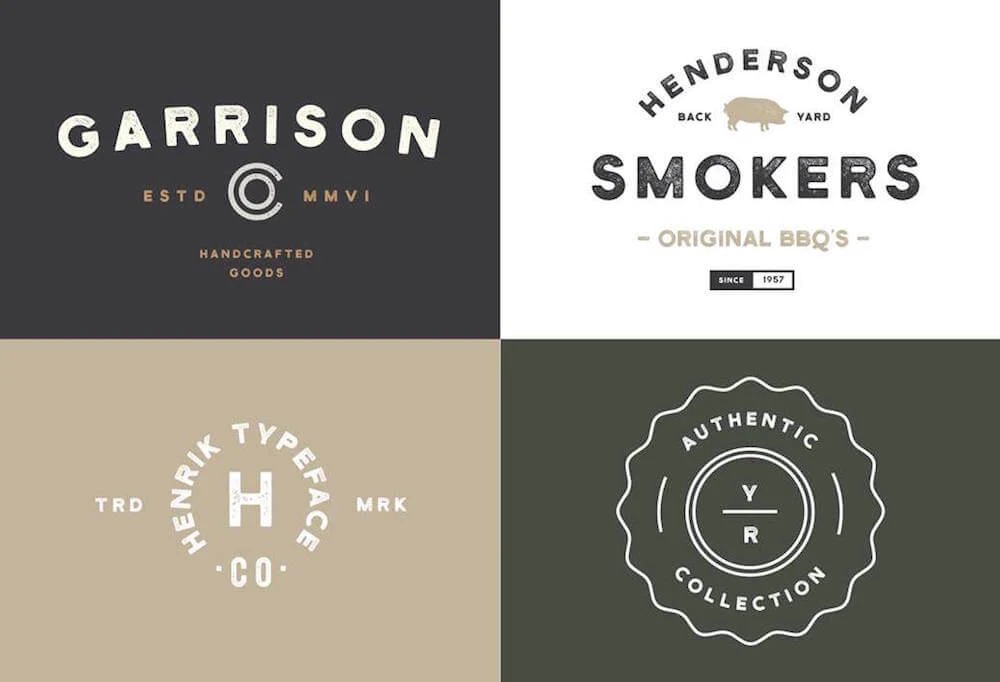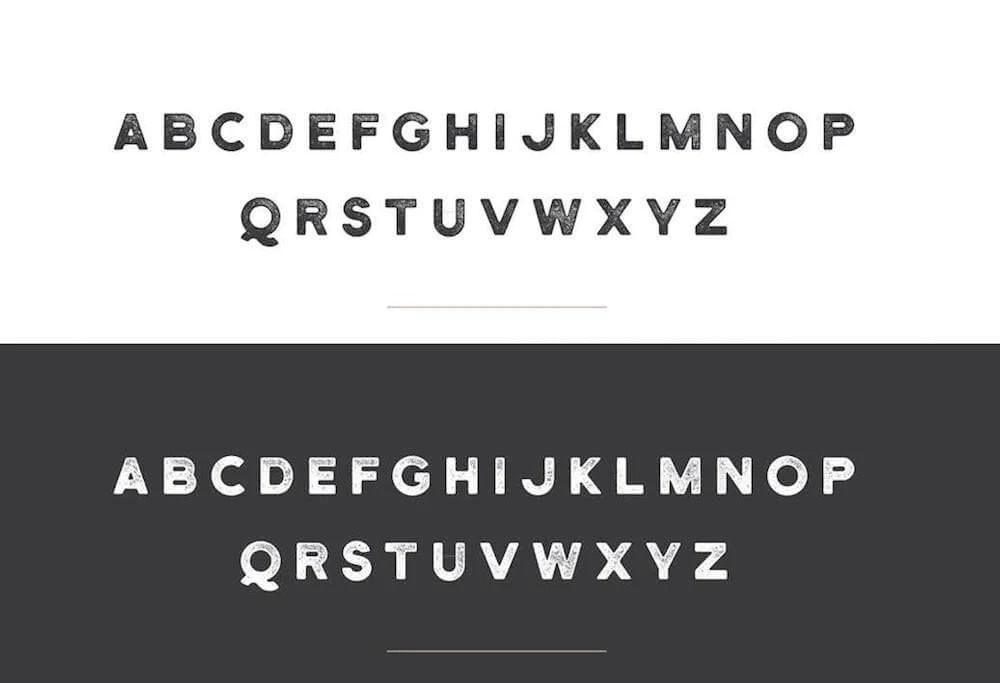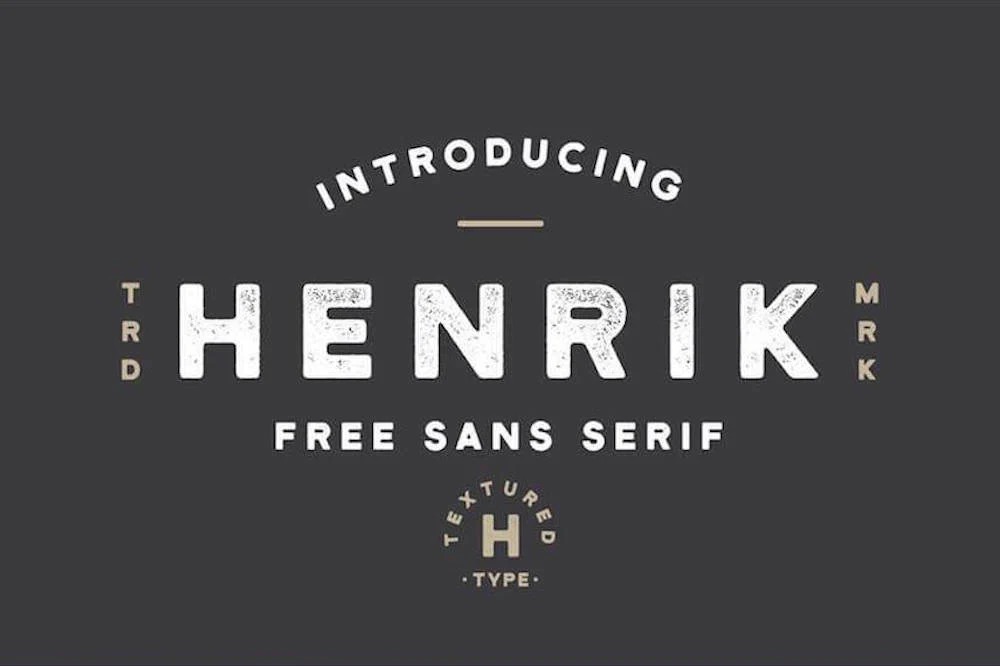
Henrik Display Font is a unique thick font made carefully handcrafted come-up with High Quality Vintage Rustic Font. It features textured upper case characters and select punctuation that will work great in branding, badges, labels, apparel, headlines and much more!